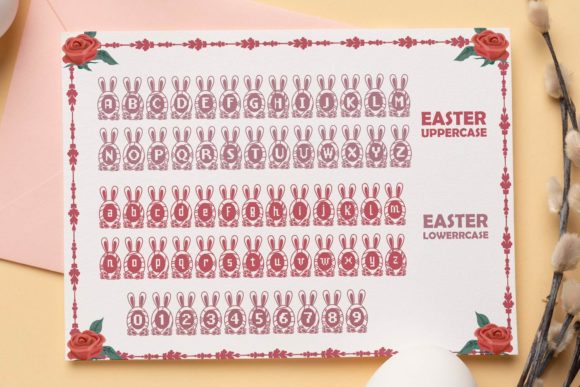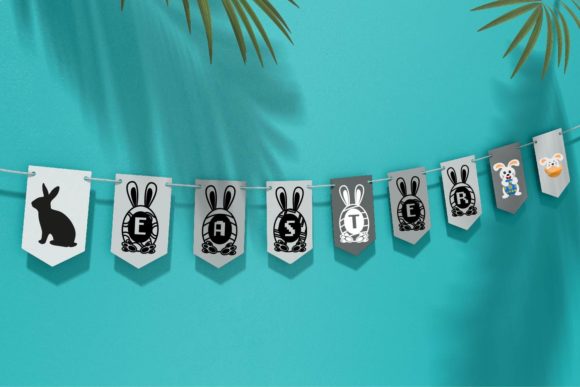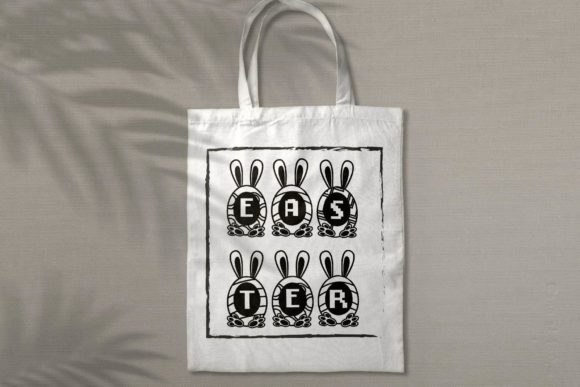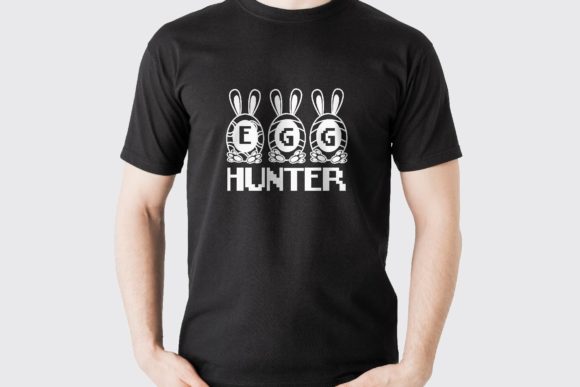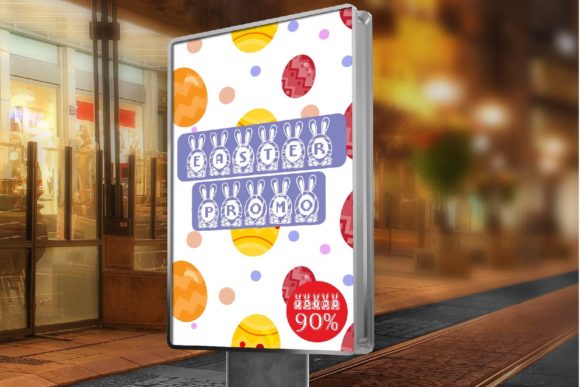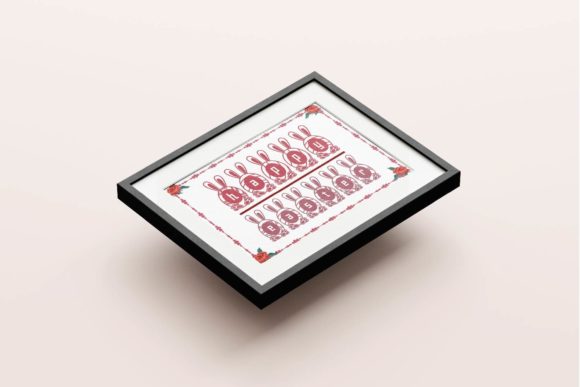
The Easter Egg Font: A Cute and Cheerful Addition to Your Design Projects
I still remember the time I was working on a Easter-themed craft project for my niece’s birthday party. I had all the materials ready, but I was struggling to find the perfect font to match the playful and festive vibe of the event. That’s when I stumbled upon the Easter Egg font, and it instantly became the perfect fit. In this article, I’ll share my experience with this delightful font, its features, and how to make the most of it in your design projects.
An Honest Review of Easter Egg Font
The Easter Egg font is a decorative font that embodies fun and authenticity, making it perfect for kids’ activities, crafts, t-shirt designs, or Easter projects. Here’s what I love about it:
- ✨ Cute and cheerful design that’s sure to bring a smile to anyone’s face
- 🎉 Supports multiple languages, making it a great choice for international projects
While the Easter Egg font is a great addition to any design project, there are a few quirks to keep in mind:
- 🤔 Limited character set, which may not be suitable for projects that require a wide range of characters
- ⚠️ Not suitable for body text, as it’s best used for headlines and titles
The Story Behind Easter Egg Font
The Easter Egg font was designed by a team of creatives who wanted to create a font that captures the playful and festive spirit of Easter. Inspired by traditional Easter decorations and candy, the font features a unique and cheerful design that’s sure to bring a smile to anyone’s face.
| Font Name | Easter Egg Font |
| Author | Mahesa Design |
| What is the Easter Egg font best used for? | The Easter Egg font is best used for kids’ activities, crafts, t-shirt designs, or Easter projects. |
| Is the Easter Egg font available in multiple languages? | Yes, the Easter Egg font supports multiple languages, making it a great choice for international projects. |